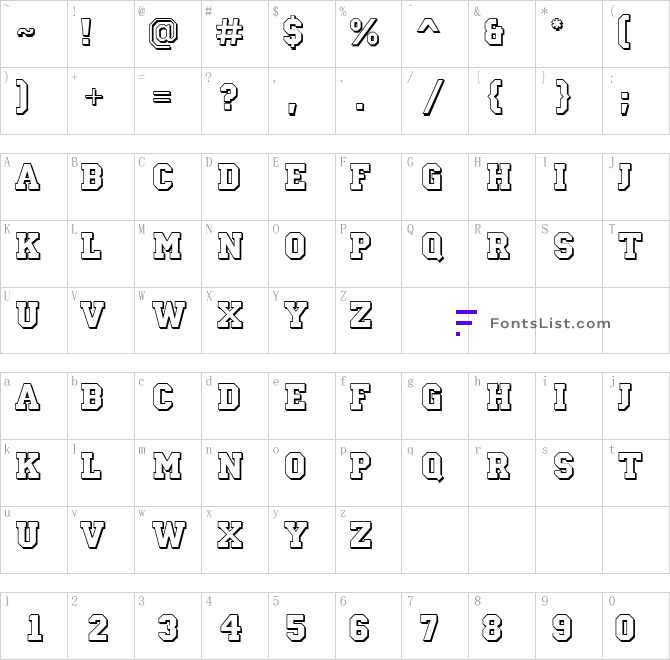
- Font Name:a_CampusOtlSh
a_CampusOtlSh-Bold.ttf is a very beautiful artistic font, a_CampusOtlSh-Bold.ttf is widely used in the design and printing of various books and pictures,a_CampusOtlSh-Bold.ttf has a strong visual impact,a_CampusOtlSh-Bold.ttf is a commonly used font in newspapers, magazines and books, and is used in posters, e-commerce Poster design, store design, logo design, font design and other fields.a_CampusOtlSh-Bold.